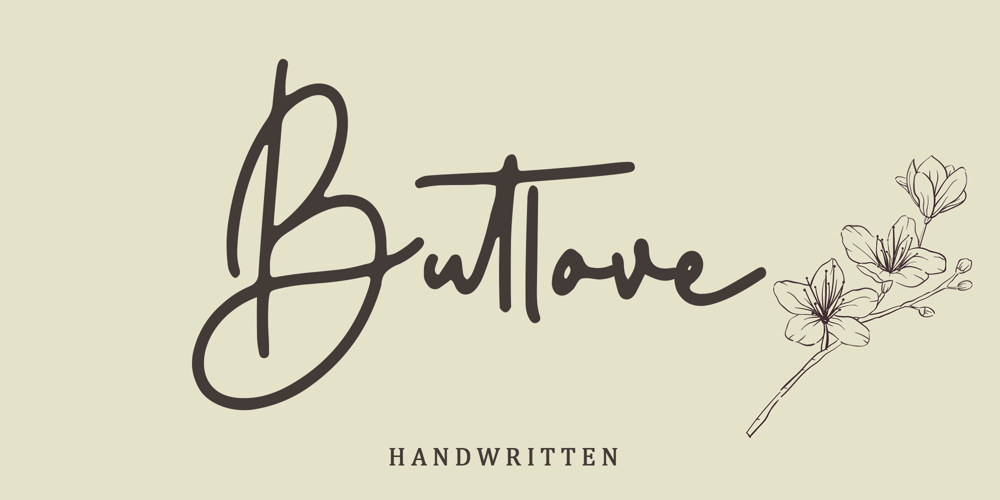
Butlove Font Family was designed by Alif Ryan Zulfikar and published by Sakha Design. Butlove contains 2 styles and family package options. Butlove is a sweet and friendly handwritten font. Its natural and unique style makes it incredibly fitting to a large pool of designs. The only limit is your imagination!